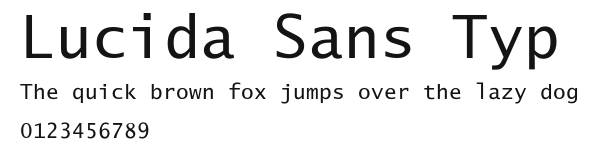
Lucida Sans Typ Preview
About Lucida Sans Typ.ttf
Lucida Sans Typ.ttf is a modern, elegant sans-serif font designed for ultimate readability and visual harmony. Perfect for branding, headlines, web design, and print materials.